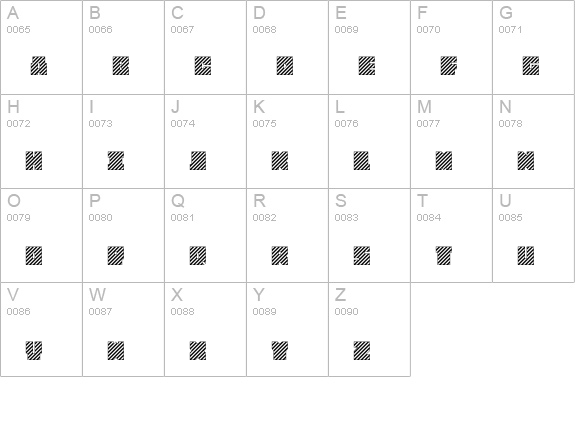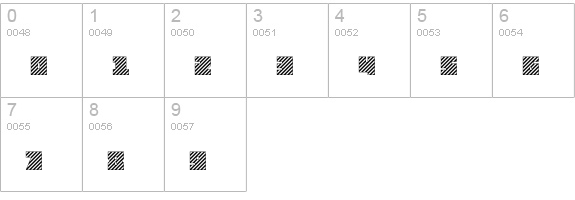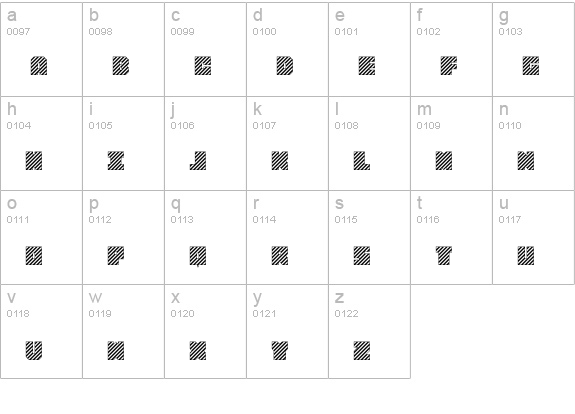
Introducing PorkerGrey font, a versatile and stylish typeface perfect for adding a touch of elegance to your design projects. This modern yet classic font features clean lines and a timeless appeal, making it suitable for a wide range of applications. PorkerGrey font is available for free download at FontsMarket.com, where you can access this premium font at no cost. Whether you're working on branding, advertising, web design, or any other creative project, PorkerGrey font offers a sophisticated and professional look that will elevate your work to the next level. With its sleek and sophisticated design, PorkerGrey font is sure to make a lasting impression on your audience. Download this stunning font today and enhance your designs with a touch of timeless elegance.